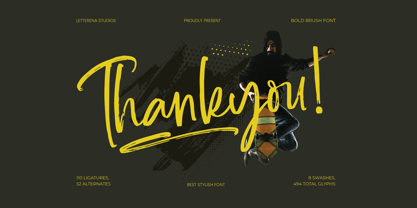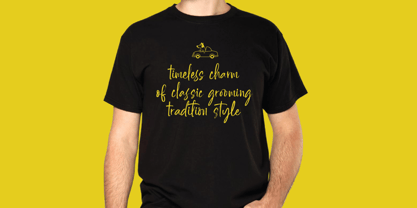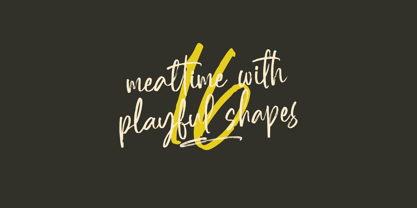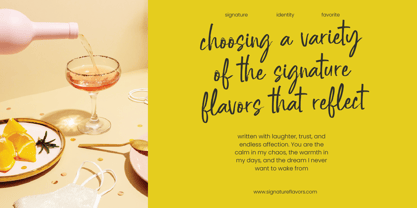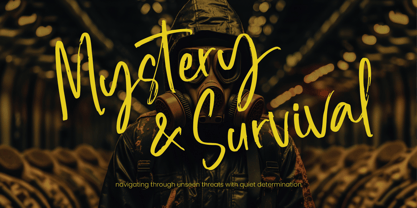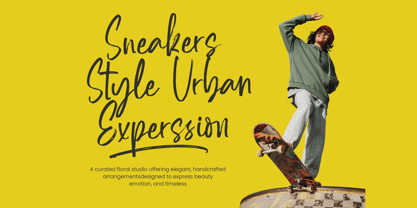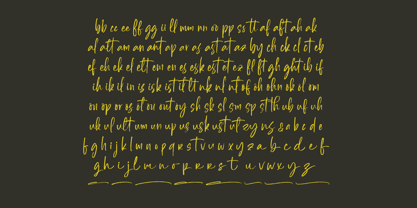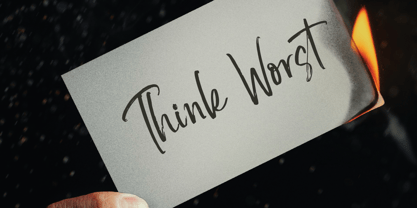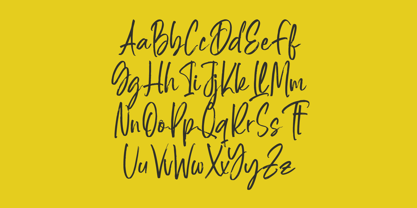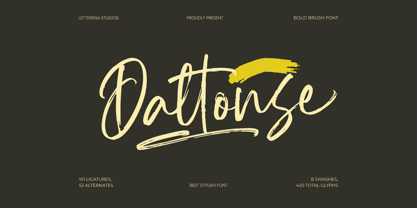
Daltonse
The Daltonse Font Family was designed by Heru Utama Putra and published by Letterena Studios. Daltonse contains 2 styles and family package options. More about this family
Daltonse - Best Stylish Font , from Letterena, is a Luxury Script font, suitable for any projects such as: logos, branding projects, homeware designs, product packaging, mugs, quotes, posters, shopping bags, t-shirts, book covers, name card, invitation cards, greeting cards, label, photography, watermark, special events, and all your other luxury and beautiful projects that need a Luxury Script taste.